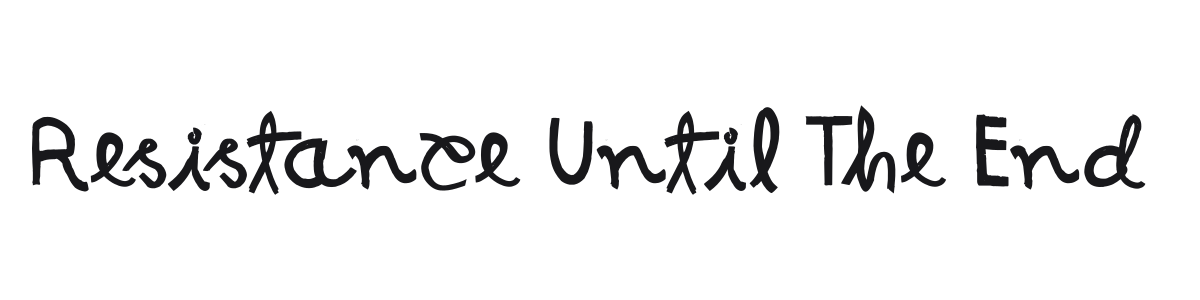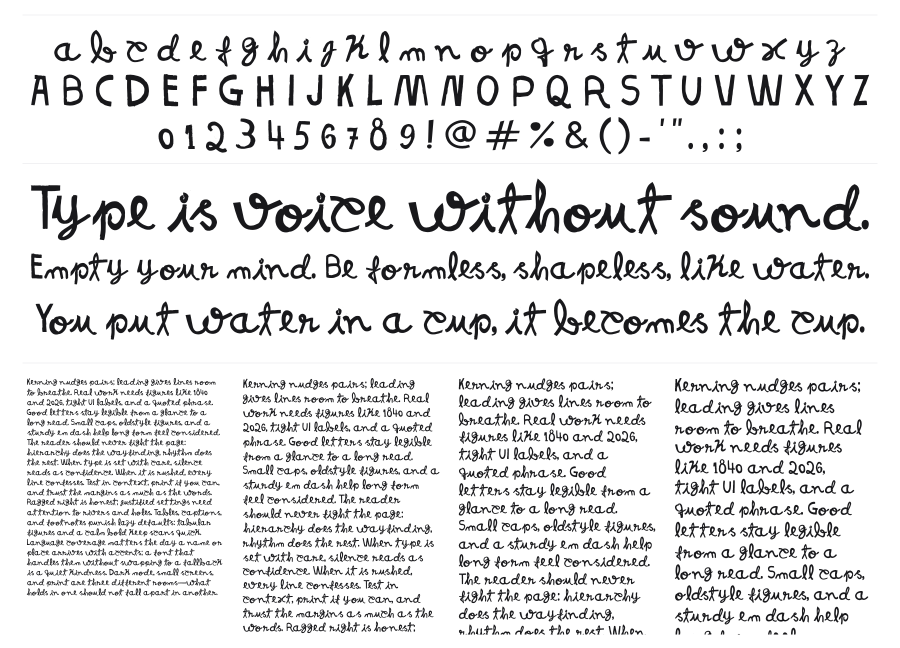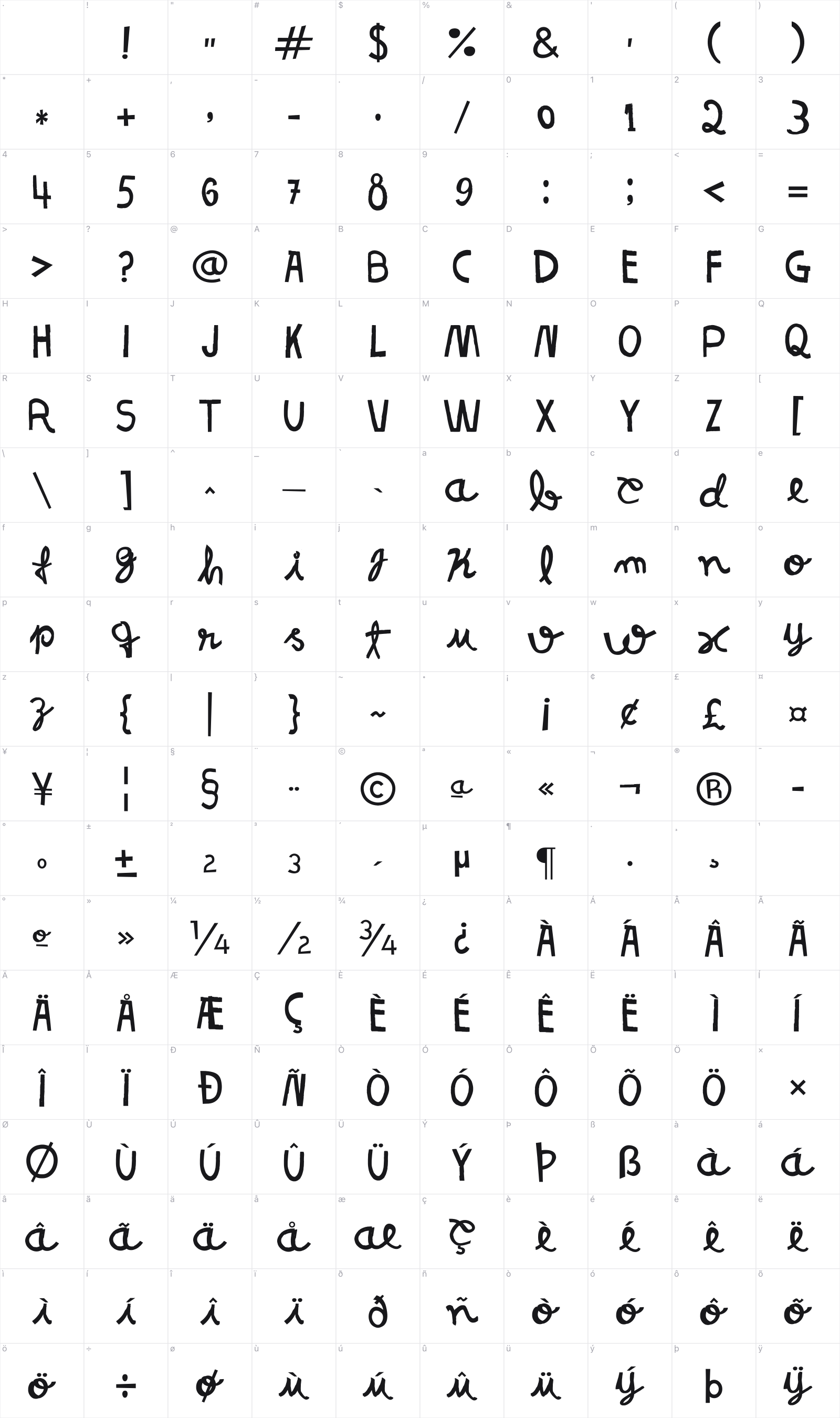
Resistance Until The End
Resistance Until The End is a loosely connected handwritten script that feels like fast, unguarded writing with a marker. The continuous flow of strokes and lively baseline rhythm give it a raw, spontaneous energy that suits anything needing genuine personality over polish. It carries an underground or punk-adjacent spirit without leaning into distress effects.